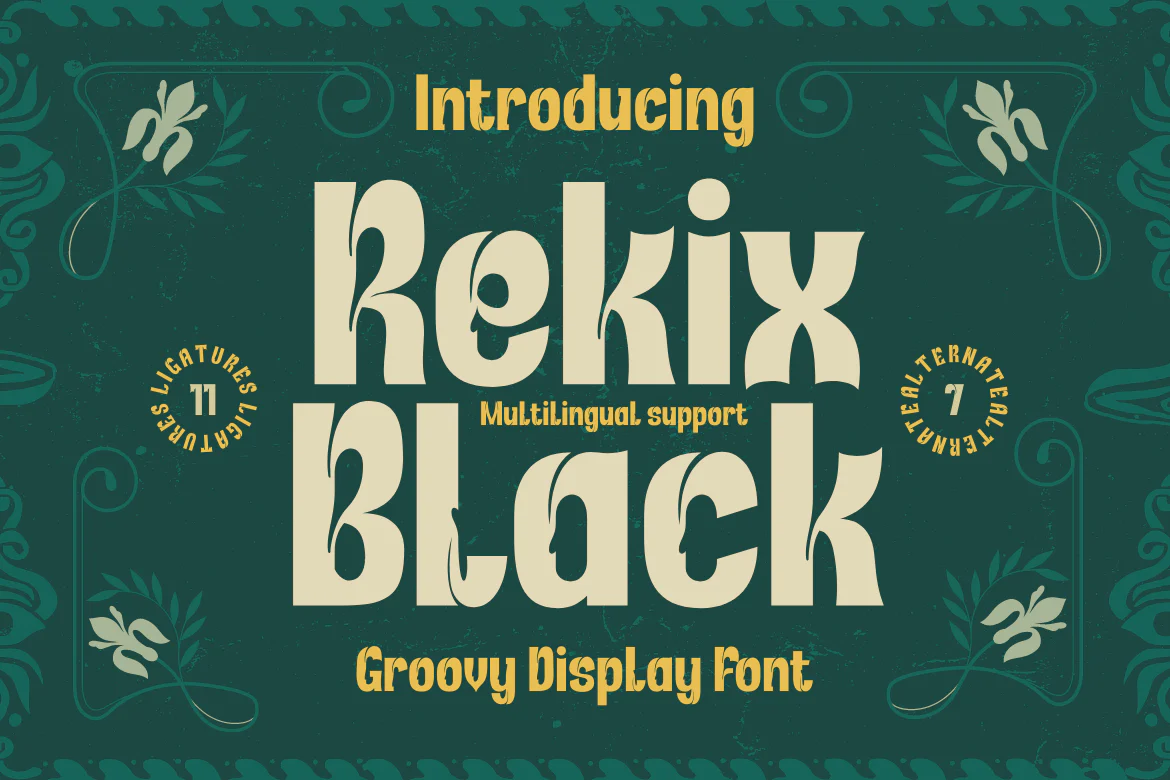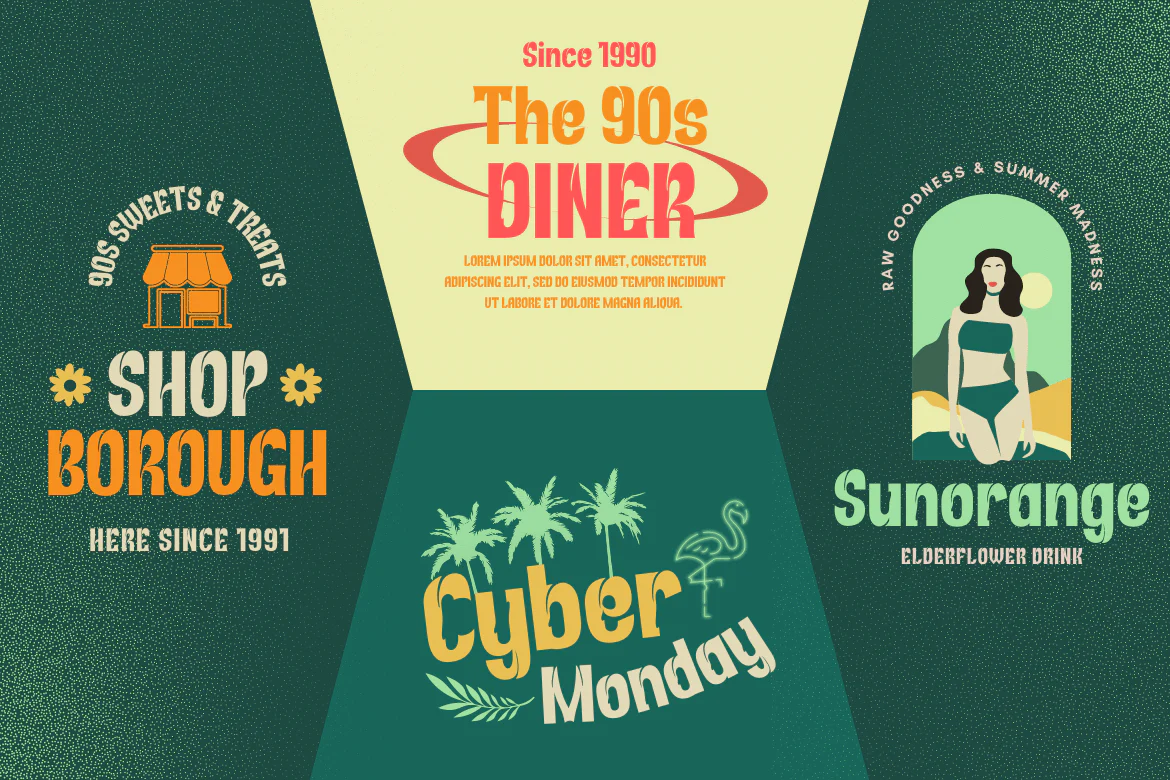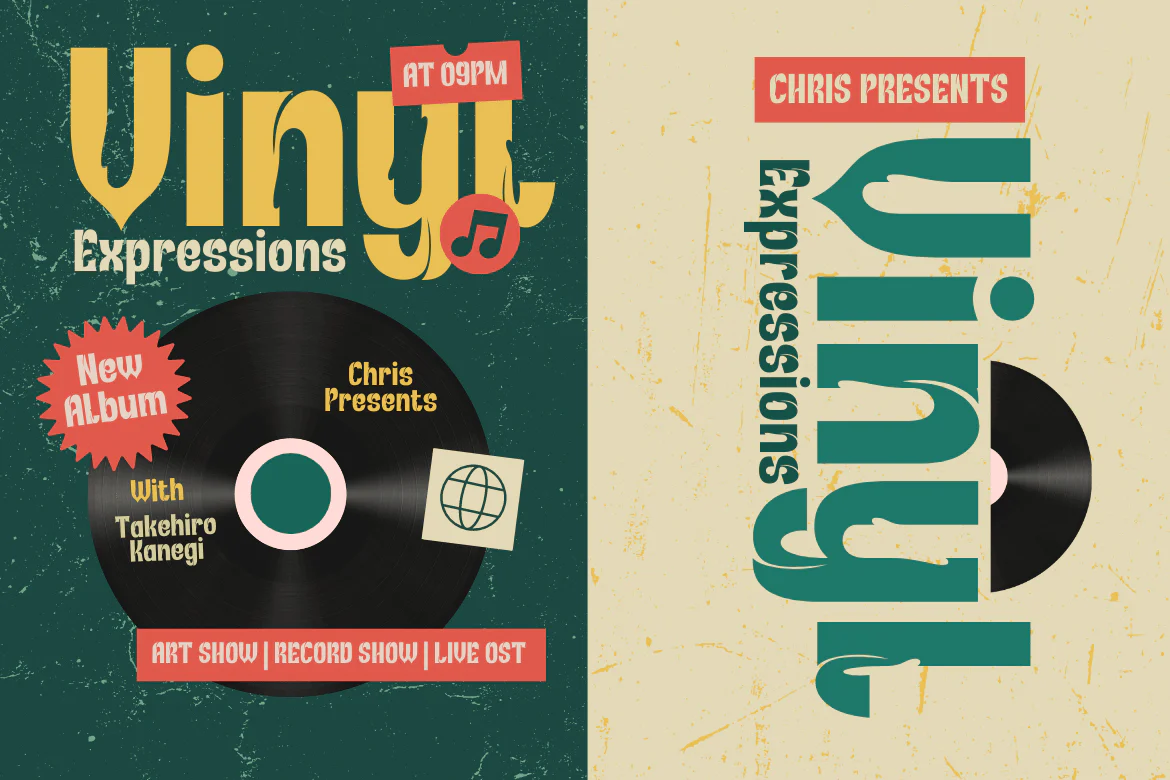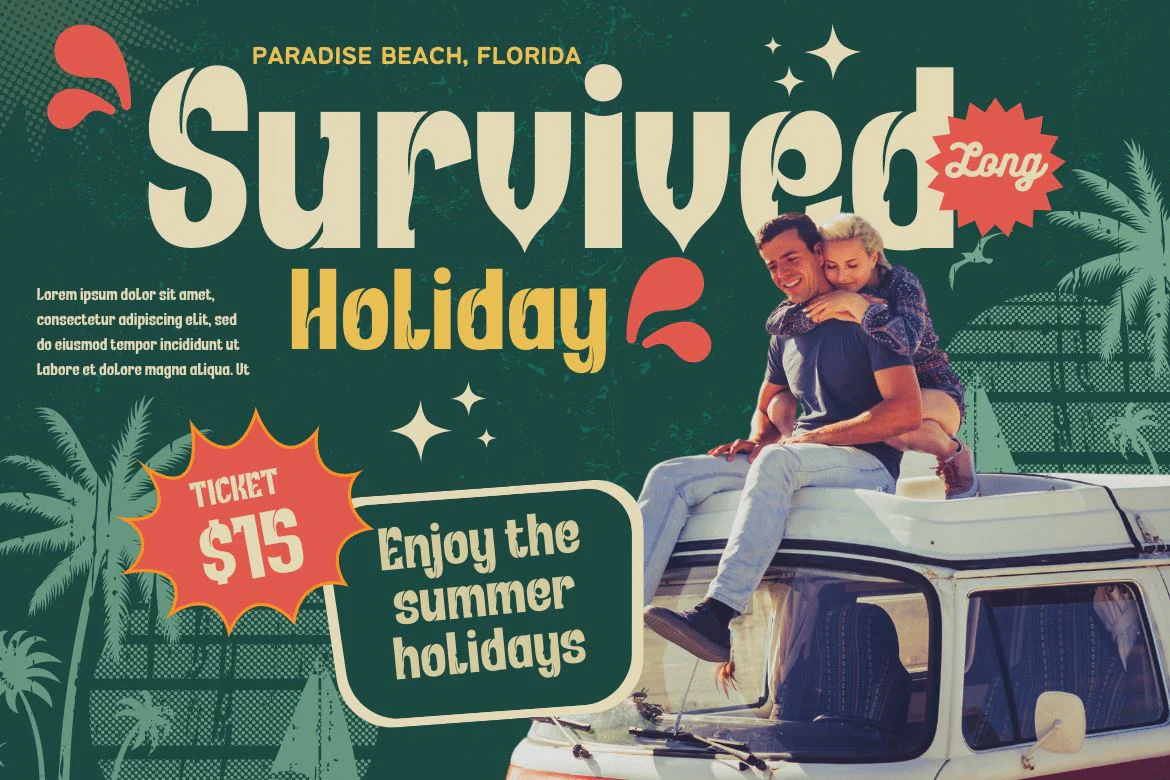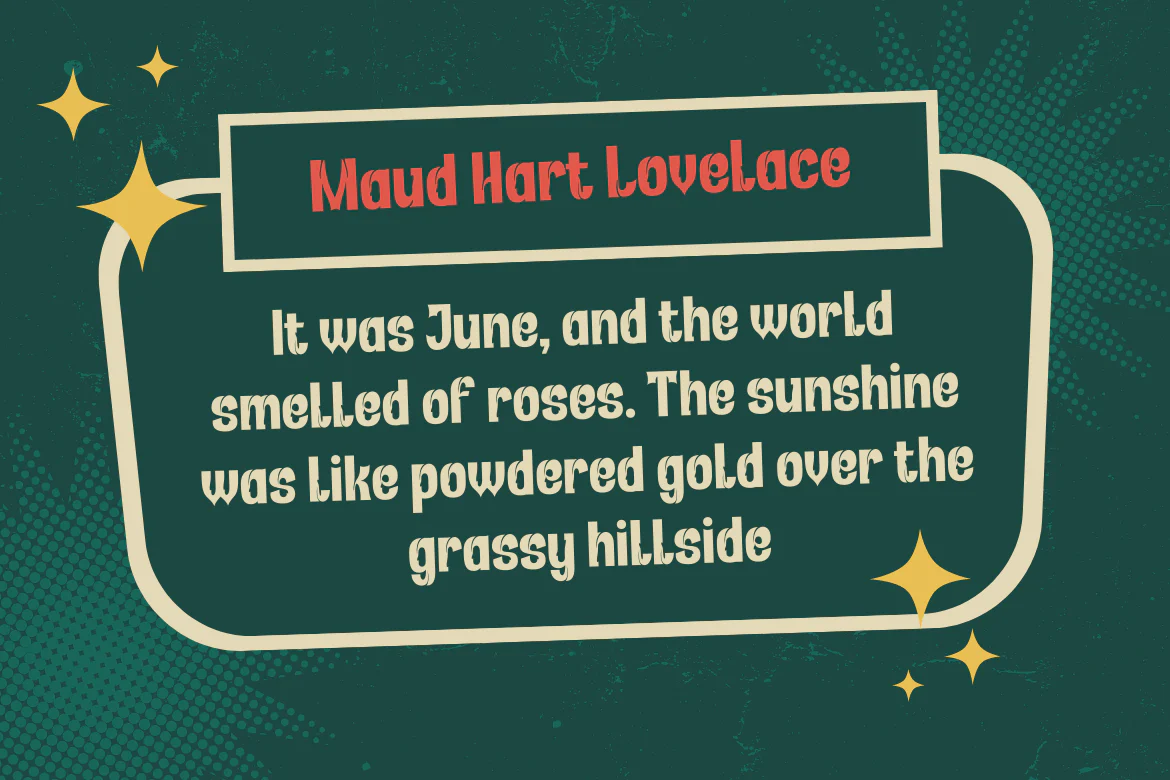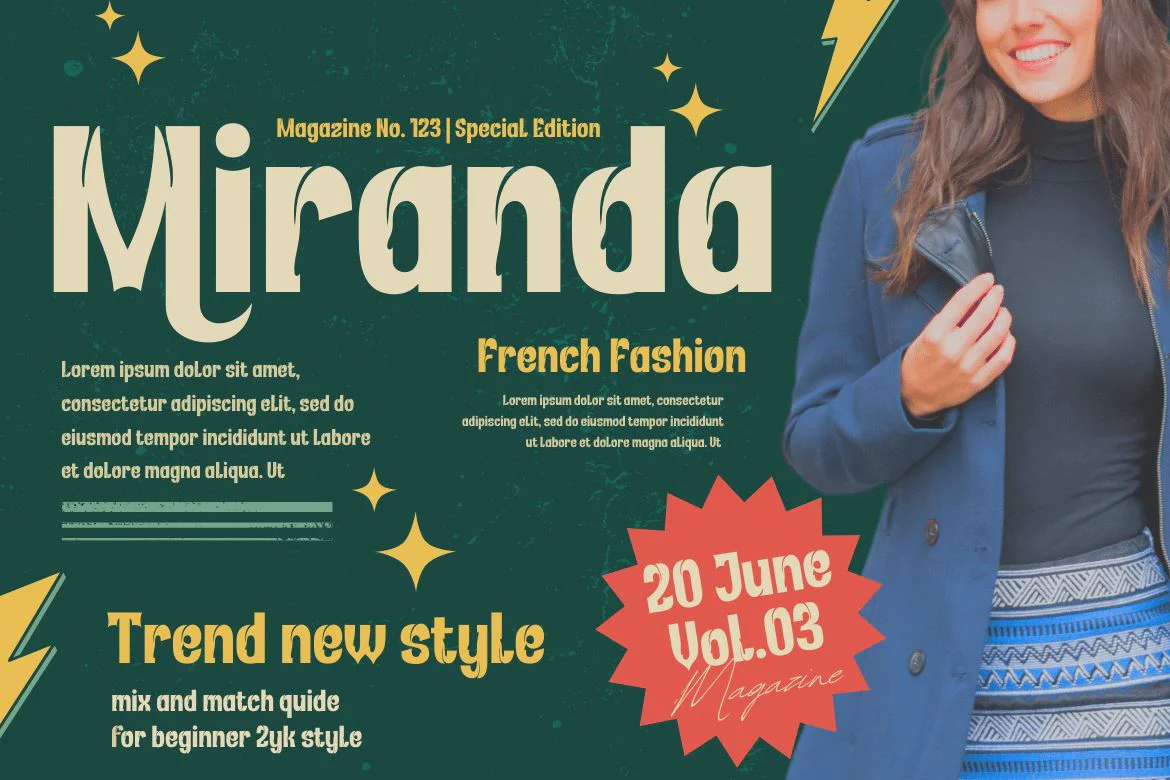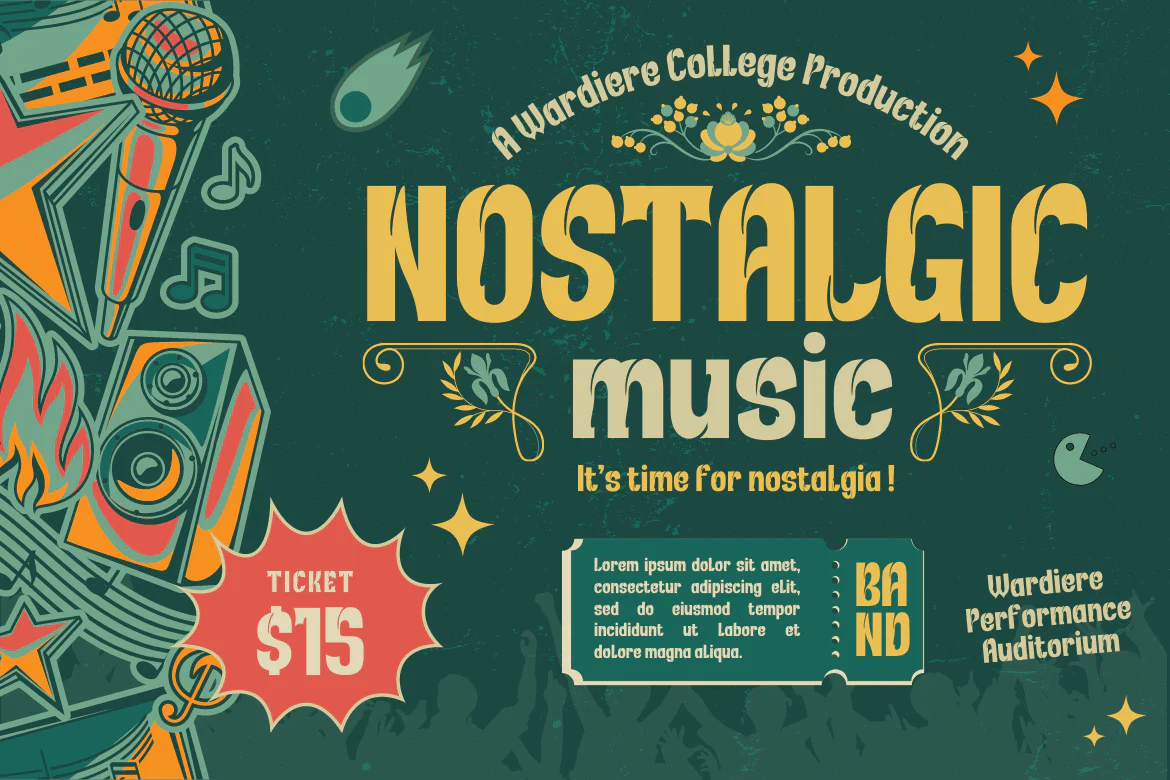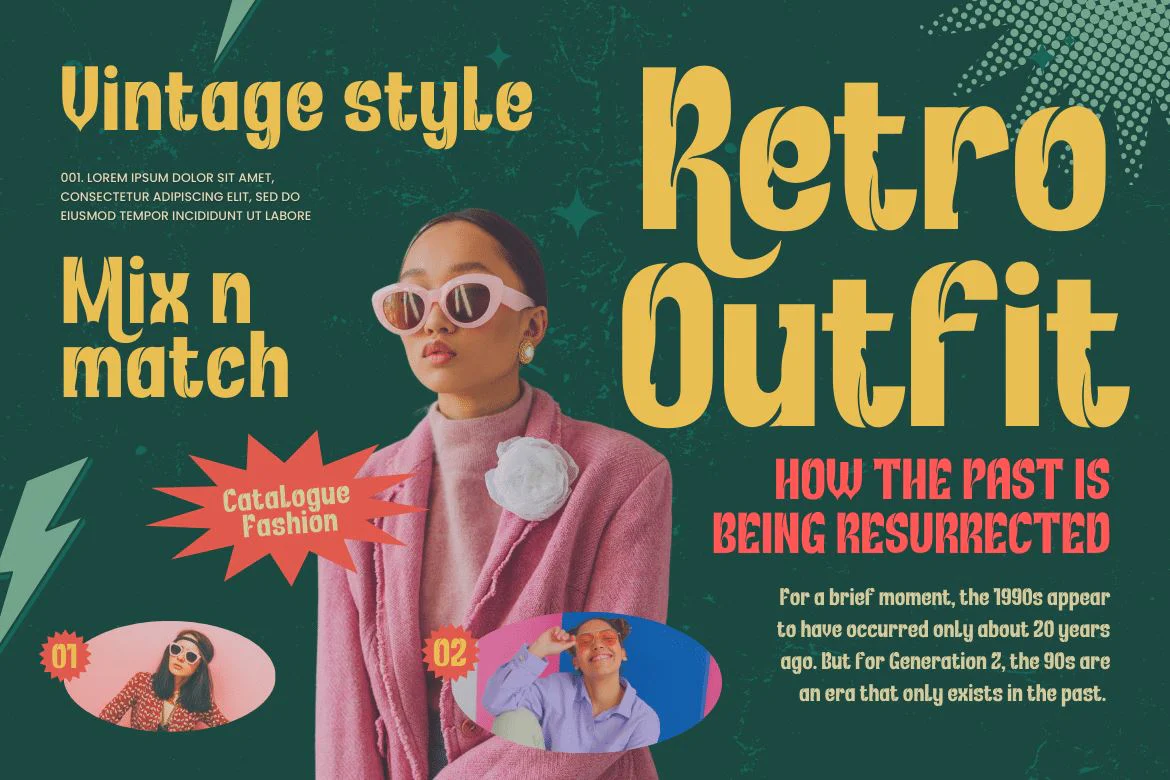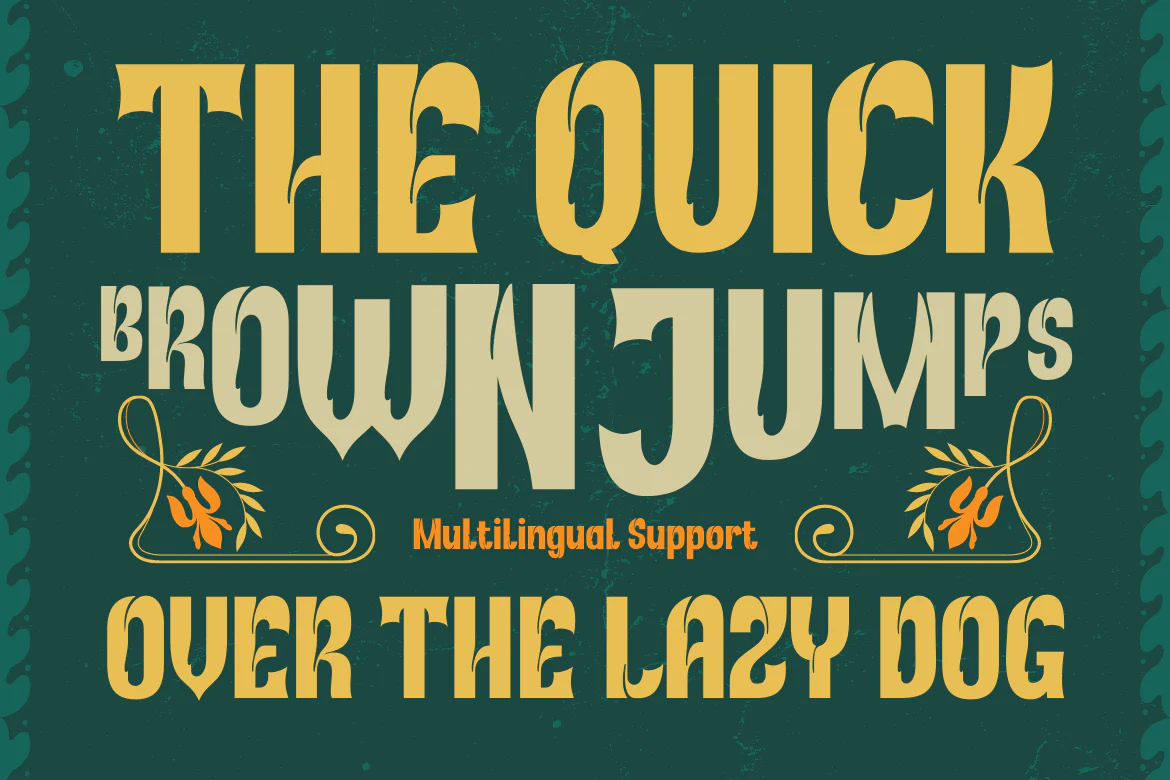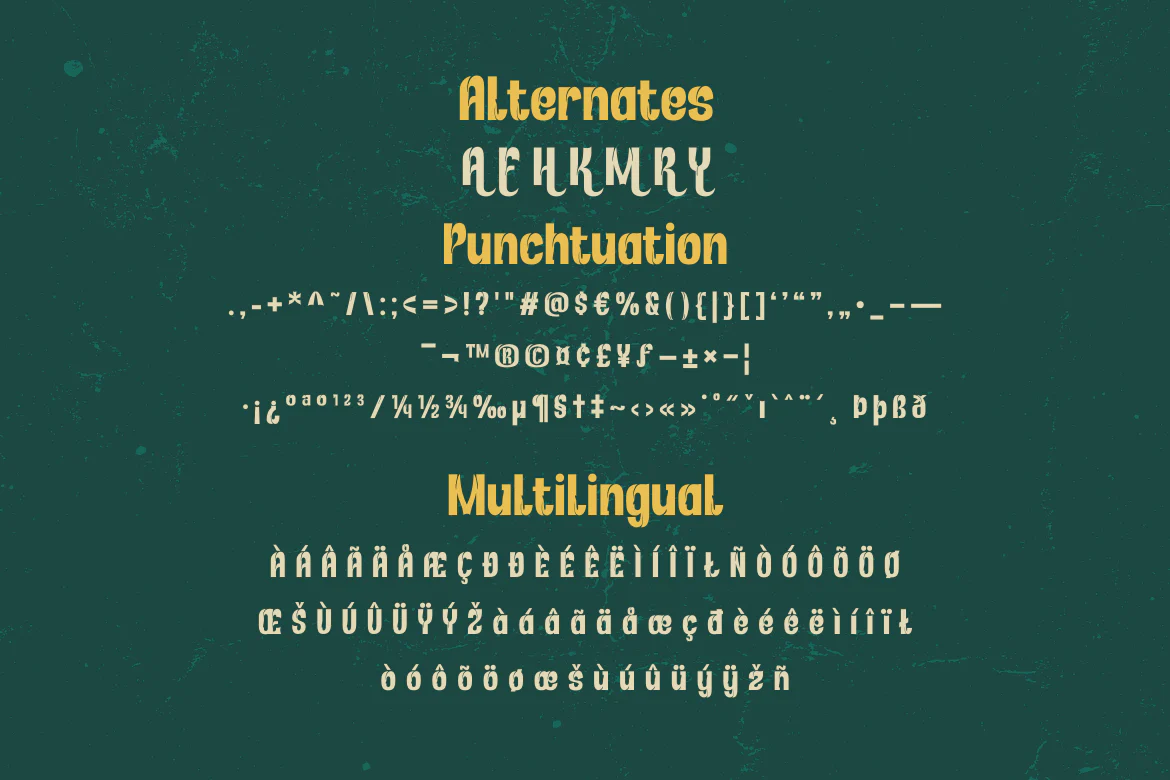
Rekix Black | Groovy Retro Font
Create a fresh and fun design with the Rekix Black font. This elegant font can be used in any project from fashion to editorial work. Add some whimsy and spice to your next design project with this font.
This font takes inspiration from the most popular vintage and retro fonts while bringing its own unique character. The letterforms have been carefully crafted to offer an elegant, yet playful feel. With a wide variety of binders and alternatives, Rekix Black brings a bit of vintage charm to any design project.